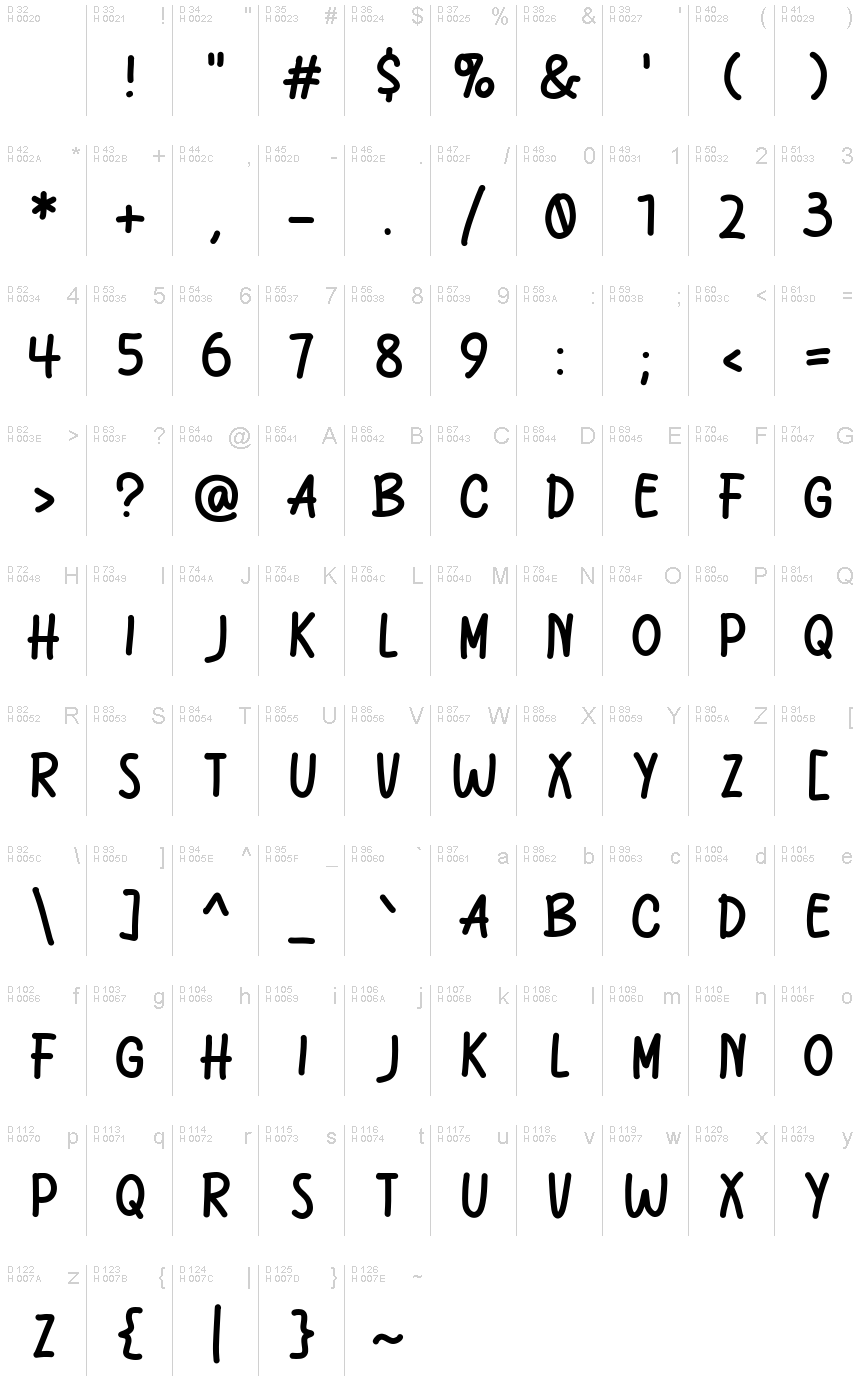
Nightcat
Nightcat, a creation by Khurasan, exudes a personal touch with its handwritten allure. This font dances between casual and expressive, capturing the spontaneity of ink on paper. Its condensed form allows for an intimate feel, as if each character were carefully penned to conserve space on a secret note. The aesthetic of Nightcat is one of charming irregularity and warmth, making it ideal for projects that require a dash of personality without sacrificing sophistication.
In the realm of design, Nightcat shines in contexts that call for intimacy and flair—think boutique branding, heartfelt invitations or personalized stationery. It could also lend itself beautifully to creative editorial pieces or expressive visual narratives where its character can truly come alive.